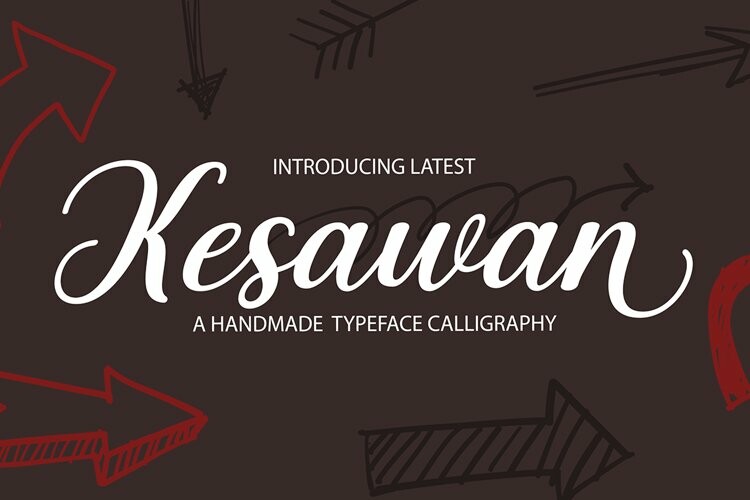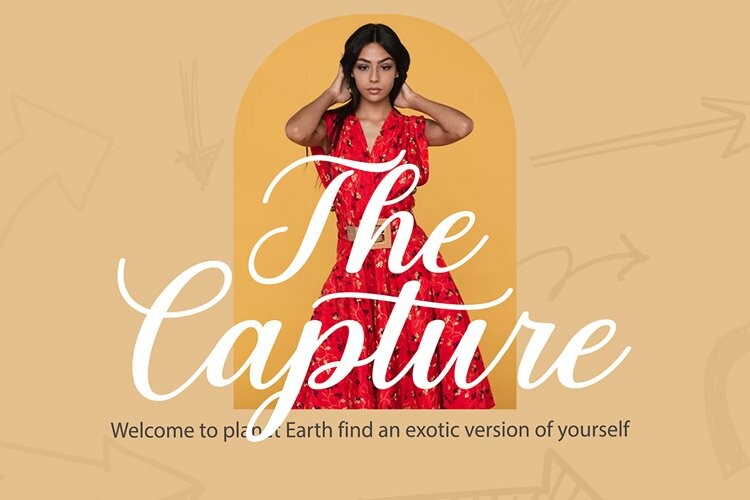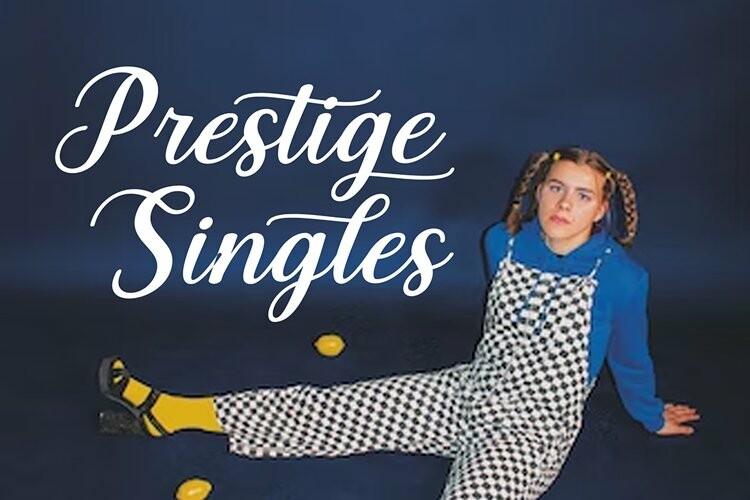
Kesawan Font
Kesawan FontKesawan Script Calligraphy Font! For those of you who need a touch of elegance and modernity to your designs, this font is made for you!
Kesawan Script Calligraphy is built with OpenType features and includes start and end swashes, alternate character swash for most lowercase letters, numbers, punctuation marks, alternatives, ligatures and also supports other languages 🙂